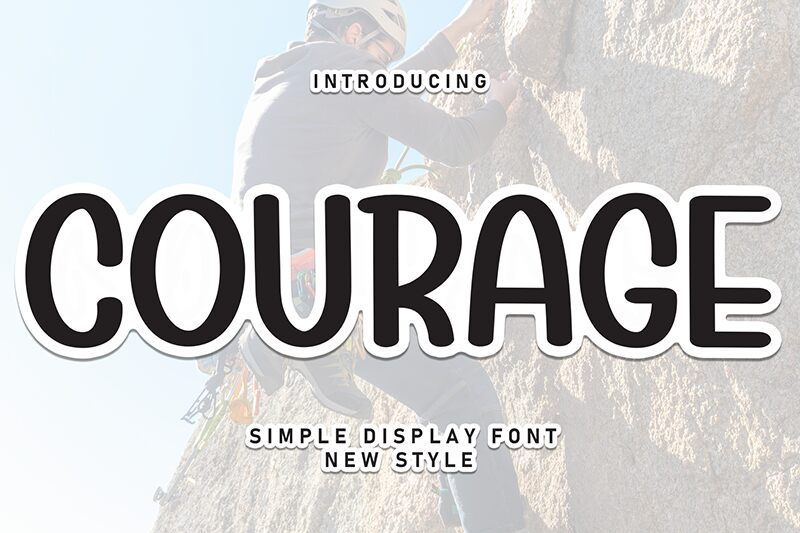
Courage
Courage font by Andi Moz is a bold brush script resource that calls attention to any project. The curved characters display a natural look that mimics handwriting styles, capturing all the blemishes and imperfections of real handwriting. Slightly retro-inspired in an approachable yet friendly style, this free brush font will suit a variety of projects.
Use this font to draw attention toward headings and subheadings such as department store signs, restaurant signs, menus and packaging. Courage can also fit into branding designs like logotypes for beverage brands or used as part of posters, creative invitations for birthday parties and weddings alike. Other utilizations include apparel design like caps and t-shirts plus label tags or print media headlines along with digital media banners and ads.